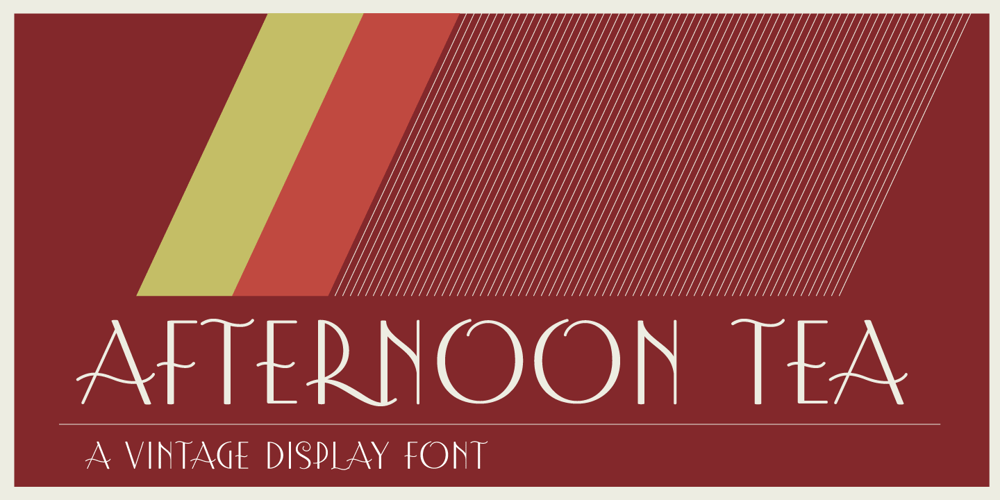
Afternoon Tea Font Family was designed by Dathan Boardman and published by Rocket Type. Afternoon Tea contains 1 styles and family package options. Afternoon Tea is inspired by a lettering specimen featured in Letters and Lettering by Paul Carlyle and Guy Oring published in 1938. The striking features are the elegant balance between thick and thin strokes (demonstrating its obvious ink pen influence) while maintaining a sturdy presence which is ideal for titles and headings. Afternoon Tea is caps only.